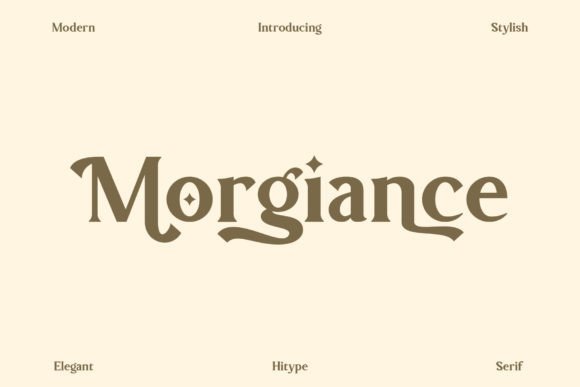
In the realm of digital creations, fonts are the architects of impressions, the storytellers of visual narratives. Meet Morgiance Font, the serif masterpiece crafted by Hitype, an artist on a quest to breathe life into typographic elegance.
Morgiance Font is not just a font; it's a gateway to a design universe where luxury, grace, and femininity converge. Specially designed for projects yearning for a touch of sophistication, Morgiance Font is the perfect companion for crafting modern, chic designs that resonate with your audience on a deeper level.
With its graceful curves and fashionable flair, Morgiance Font commands attention without overpowering. Its versatility extends beyond aesthetics; it's a font that communicates, that whispers tales of elegance and exudes an air of effortless charm.
Picture your designs adorned with Morgiance Font - your logos, branding, invitations, social media posts, and web designs will radiate a magnetic pull that speaks volumes about your brand's personality. This font is the perfect choice for fashionistas, lifestyle bloggers, creative agencies, and anyone seeking to create a lasting impression.
Morgiance Font's magic lies not only in its captivating aesthetics but also in its practicality. It's PUA encoded, granting you effortless access to a world of glyphs and swashes, the intricate details that elevate your designs from ordinary to extraordinary.
Embrace Morgiance Font and embark on a creative journey where beauty and functionality intertwine. Let your designs flourish with the allure of this font, captivating your audience with its timeless appeal.